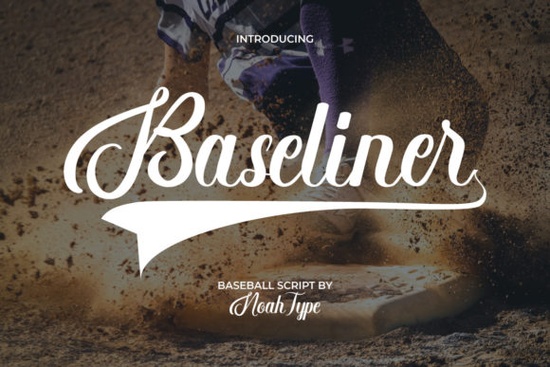
If you're searching for a script font that looks hand-drawn rather than digital, Baseliner Font is a good option to try. It's a brush-style script inspired by baseball, but don't let that limit you. The natural, casual feel works for all sorts of projects, from logos to product packaging to social media posts. It's the kind of font that adds a personal touch without trying too hard.
What makes Baseliner different from other script fonts?
Most script fonts are either too elegant or too rigid. Baseliner sits in a sweet spot between casual and readable. Each letterform is designed to mimic natural handwriting, with slight variations in stroke weight and flow. The brush texture gives it a sporty, energetic vibe without sacrificing legibility.
This makes it a solid choice for logos, logotypes, headlines, product packaging, screen printing, signage, social media posts, stationery, fashion, games, sports projects, and videos. Whether you're working on a baseball-themed design or just want something that feels authentic, Baseliner adapts well.
What design styles work best with Baseliner?
Because Baseliner is a brush script with a natural, sporty character, it pairs well with clean, simple fonts. A bold sans-serif or a condensed geometric font creates good contrast without competing for attention. If you want a vintage feel, try it with a rough or distressed font. For digital projects, it works great as a headline on a solid background or photo.
How does Baseliner compare to other script fonts on Creative Fabrica?
There's no shortage of script fonts, but Baseliner's brush-driven, sporty style sets it apart. Milestone Font is more structured and polished, while Glowing Font goes for a neon, attention-grabbing effect. Baseliner lands somewhere in the middle: casual but readable, with enough personality for branding but not so much that it overwhelms other elements.
For print-on-demand sellers, this font works well for t-shirts, hoodies, mugs, posters, and stickers. The brush strokes give designs a handcrafted look that buyers often associate with quality and authenticity.
Is Baseliner Font beginner-friendly?
If you need a script font that feels natural, sporty, and easy to work with, Baseliner Font is worth adding to your collection. Start with a simple logo or headline project and see how the hand-drawn style changes the look of your design.